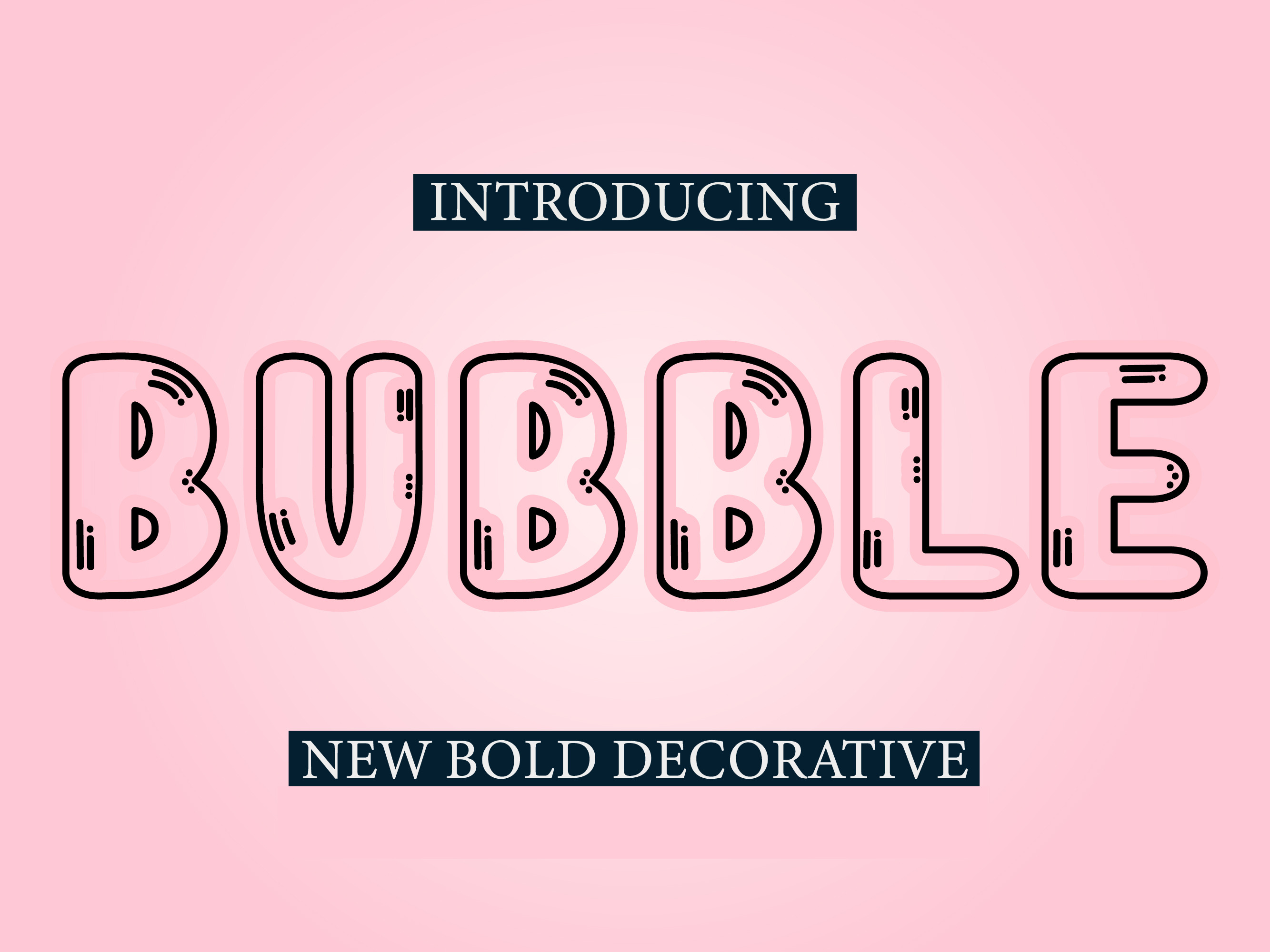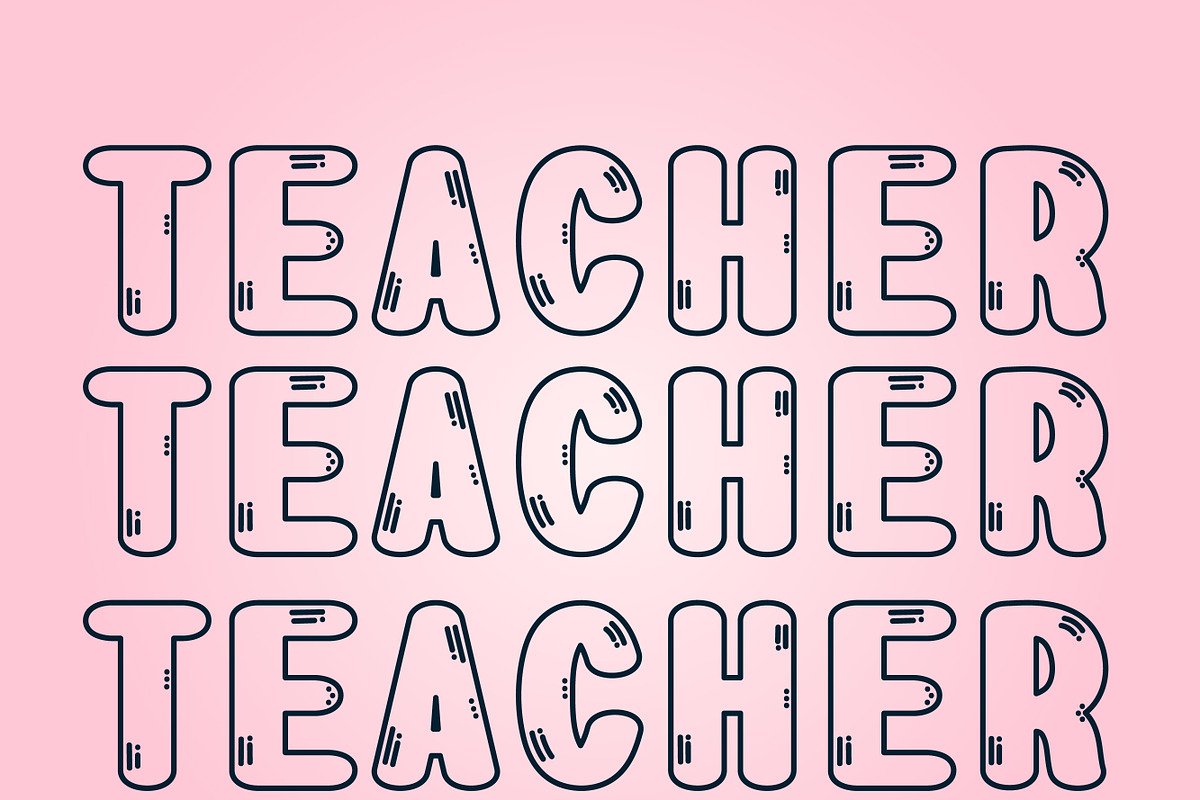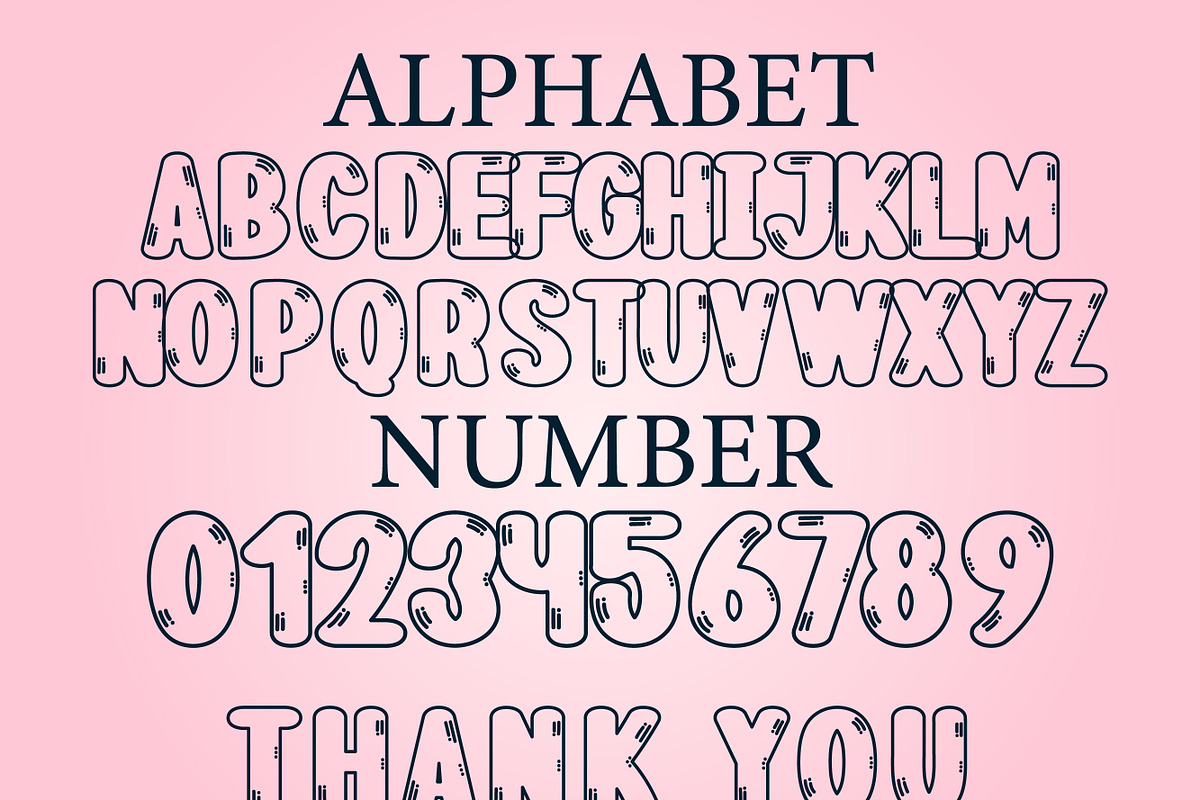
Bubble Outline Decorative font
Bubble is a fun, playful display font with thick, rounded letters that look soft and bouncy. Perfect for adding a quirky, friendly touch to posters, titles, and kids' designs. Its bold and bubbly style makes any text pop!